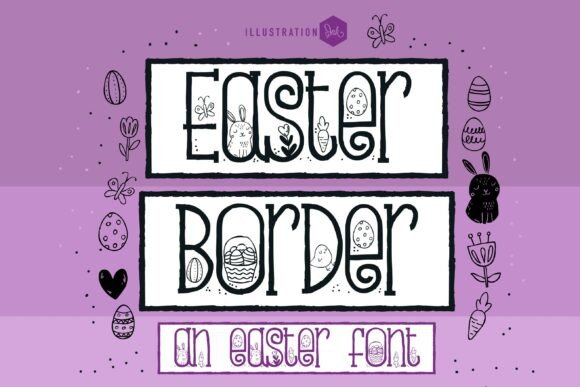
Easter Border Font: A Whimsical Handwritten Serif for Your Easter Celebrations
As Easter approaches, we often find ourselves searching for the perfect font to add a touch of whimsy and festivity to our Easter-themed creations. Look no further than the Easter Border Font, a hand-crafted font that combines a whimsical hand-written serif with Easter imagery throughout. In this article, we’ll take a closer look at this unique font, its features, and how you can use it to elevate your Easter designs.
What is a Hand-Crafted Font?
A hand-crafted font, also known as a handwritten font, is a type of font that is designed to look like it was written by hand. These fonts are often used for invitations, greeting cards, and other items where a personal touch is desired. Handwritten fonts can be either formal or informal, and they can be used for a variety of purposes, from elegant wedding invitations to playful Easter-themed designs.
Hand-crafted fonts are typically created using a combination of traditional drawing and digital techniques. The process involves drawing each letter, number, and symbol by hand, often using a variety of tools and materials, such as pens, pencils, and brushes. The resulting font is then digitized and refined to ensure that it looks great on a variety of devices and in different sizes.
Introducing the Easter Border Font
The Easter Border Font is a unique and festive font that is perfect for Easter-themed designs. This hand-crafted font features a whimsical hand-written serif with Easter imagery throughout, including eggs, bunnies, and other Easter icons. The font is contained in a self-made border, which can be easily customized using rectangle brackets.
One of the standout features of the Easter Border Font is its playful and whimsical design. The font is perfect for creating Easter-themed invitations, greeting cards, and other designs that require a touch of festivity and fun. The Easter imagery throughout the font adds an extra layer of depth and visual interest, making it perfect for designs that need to stand out.
Key Features of the Easter Border Font
- Whimsical hand-written serif: The Easter Border Font features a unique and playful hand-written serif that is perfect for Easter-themed designs.
- Easter imagery: The font includes Easter imagery throughout, including eggs, bunnies, and other Easter icons.
- Self-made border: The font is contained in a self-made border that can be easily customized using rectangle brackets.
- Hand-crafted design: The Easter Border Font is a hand-crafted font that is designed to look like it was written by hand.
How to Use the Easter Border Font
The Easter Border Font is perfect for a variety of Easter-themed designs, including:
- Easter invitations: Use the Easter Border Font to create festive and fun Easter invitations that will delight your guests.
- Easter greeting cards: The font is perfect for creating Easter greeting cards that feature a personal touch.
- Easter-themed crafts: Use the Easter Border Font to add a touch of whimsy and festivity to your Easter-themed crafts, such as Easter egg decorations and bunny-themed designs.
Tips for Using Handwritten Fonts
Here are a few tips for using handwritten fonts, including the Easter Border Font:
- Use them sparingly: Handwritten fonts can be playful and fun, but they can also be overwhelming if used too much. Use them sparingly to add a touch of personality to your designs.
- Pair them with simple fonts: Pair handwritten fonts with simple fonts to create visual interest and hierarchy in your designs.
- Experiment with colors: Handwritten fonts look great in a variety of colors, so don’t be afraid to experiment and find the perfect color for your design.
The Easter Border Font is a unique and festive font that is perfect for Easter-themed designs. With its whimsical hand-written serif and Easter imagery throughout, this hand-crafted font is sure to add a touch of whimsy and festivity to your Easter creations. Whether you’re creating Easter invitations, greeting cards, or other designs, the Easter Border Font is a great choice.
So why not give the Easter Border Font a try? With its ease of use and customizable border, it’s the perfect font for adding a personal touch to your Easter designs.